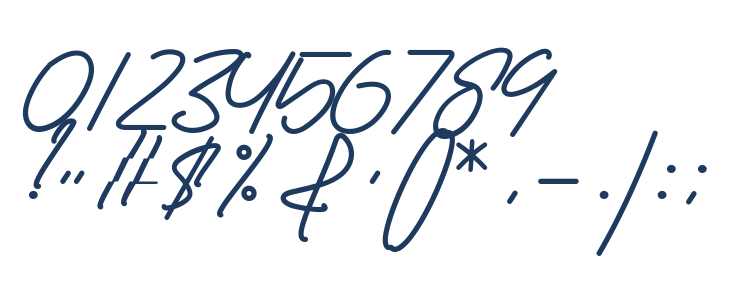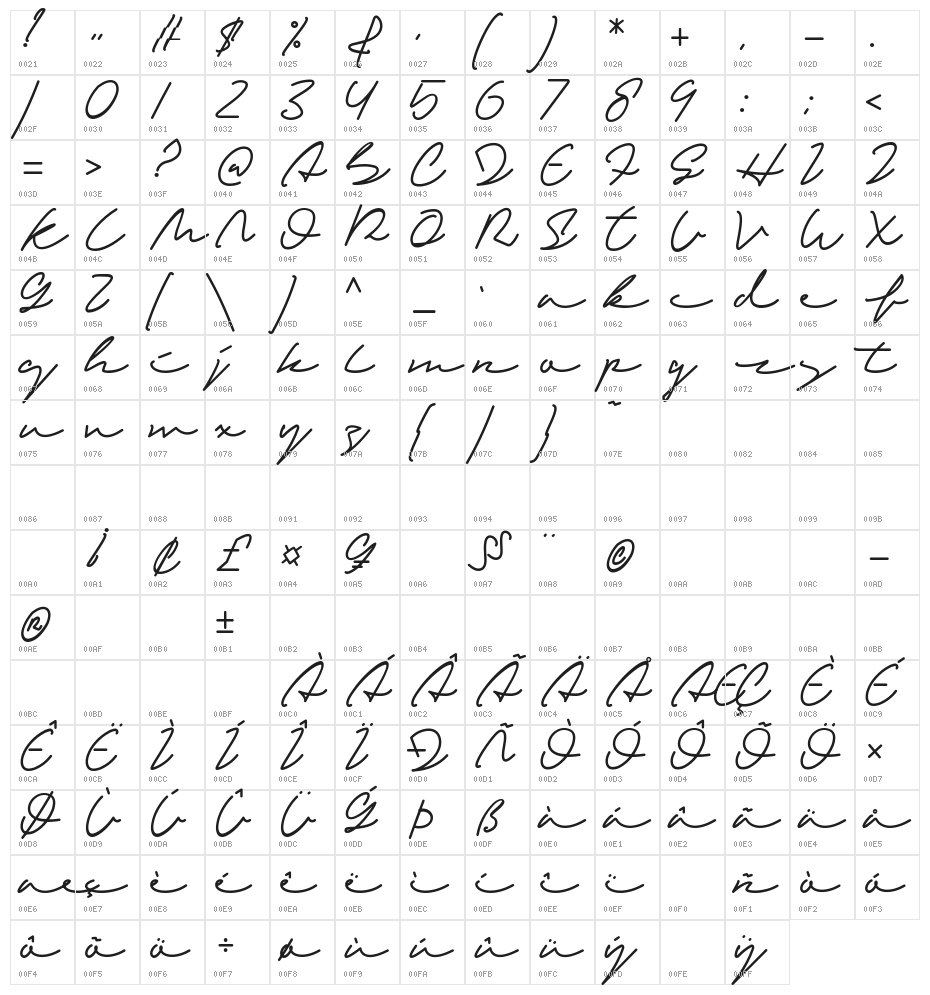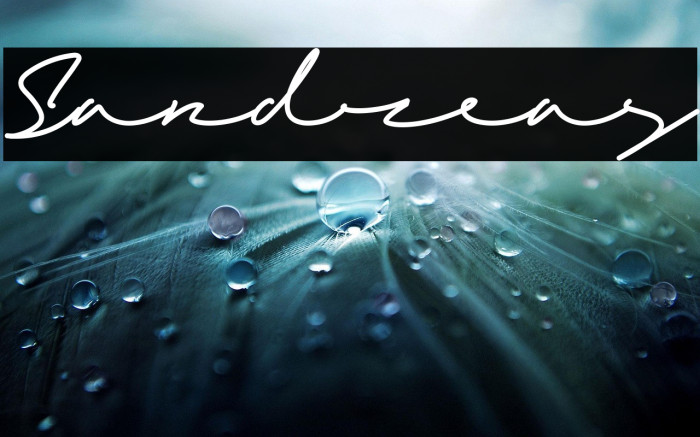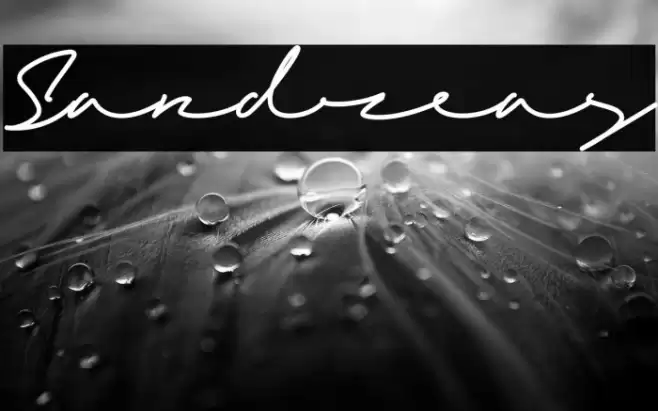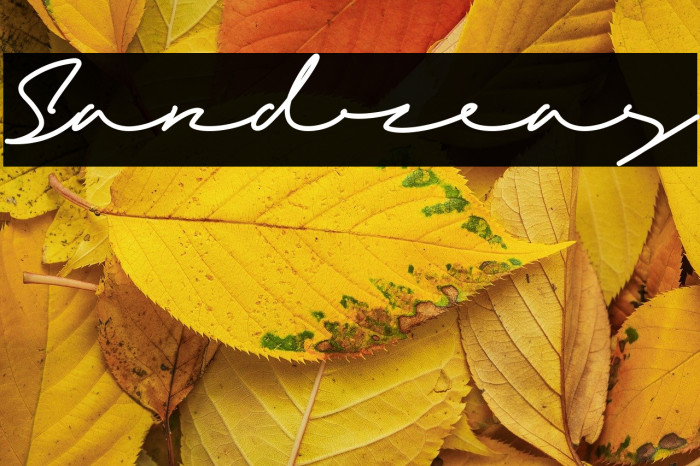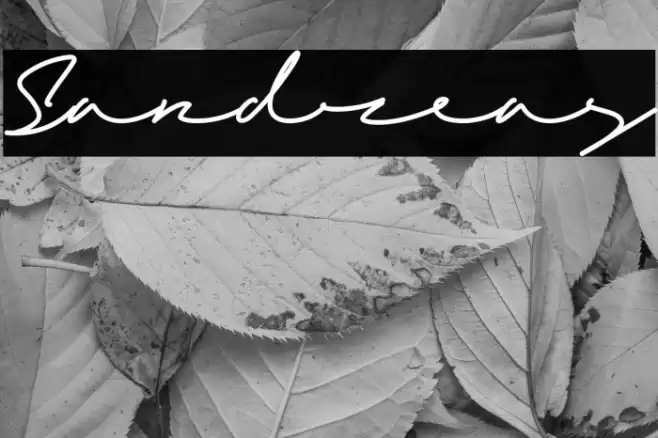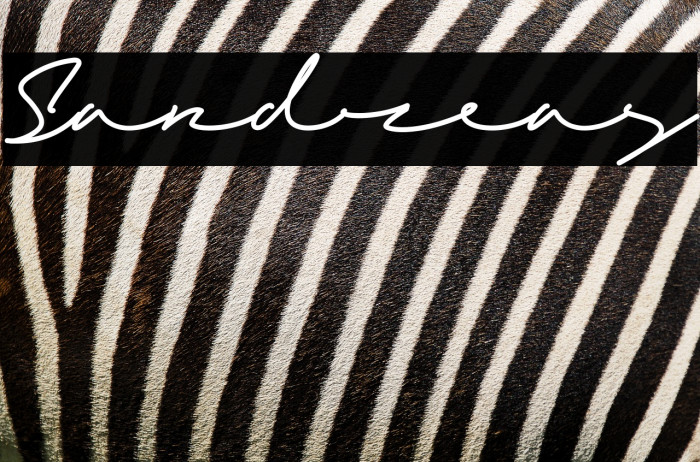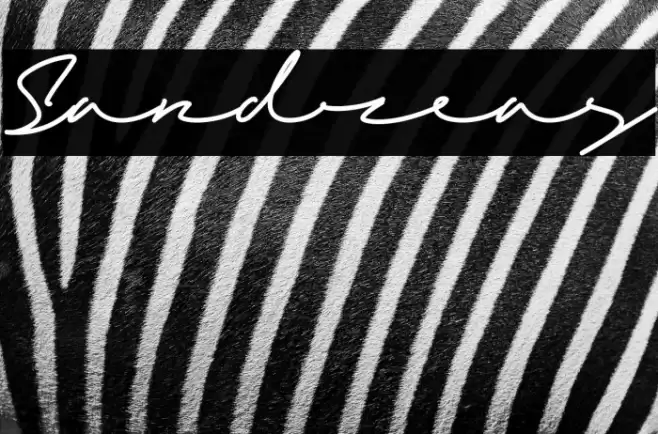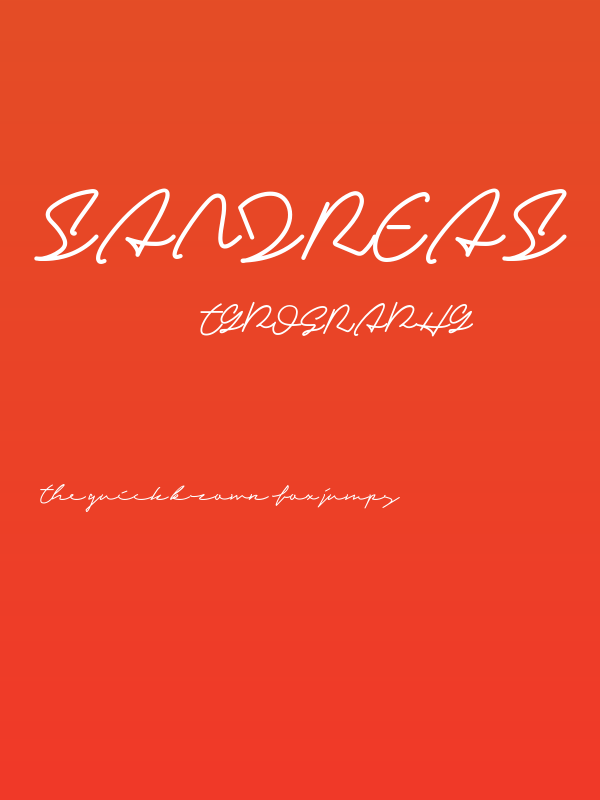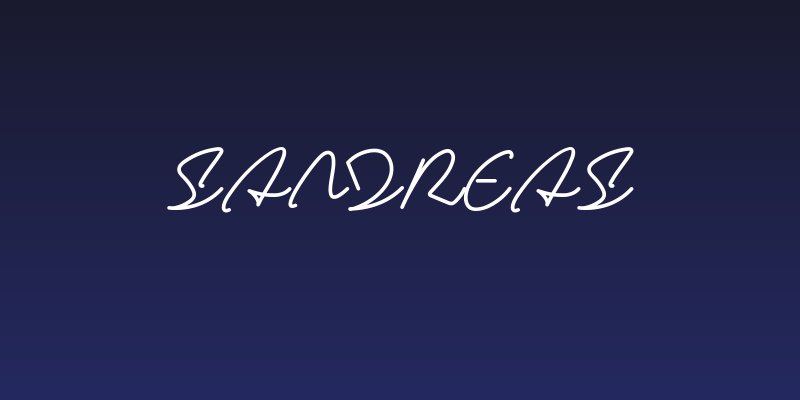
Sandreas Font
Sandreas Description
This font exudes a fluid and elegant handwritten style, characterized by its smooth, flowing cursive script. The letters are connected in a seamless manner, giving it a natural and personal touch. The uppercase letters are slightly larger, maintaining a consistent height, while the lowercase letters are more varied in their ascenders and descenders, adding to the dynamic feel. The numerals are clear and distinct, matching the overall style with their rounded and connected forms. Special characters are integrated seamlessly, maintaining the same fluidity and elegance. This font is ideal for projects that require a personal, handwritten touch, such as invitations, greeting cards, or branding materials that aim to convey warmth and authenticity.
| Overall Style | Elegant, Personal, Fluid |
| Use Case | Headlines, Invitations, Greeting Cards |
| Proposed Projects | Ideal for invitations, greeting cards, personal branding, and any project requiring a warm, authentic touch. |